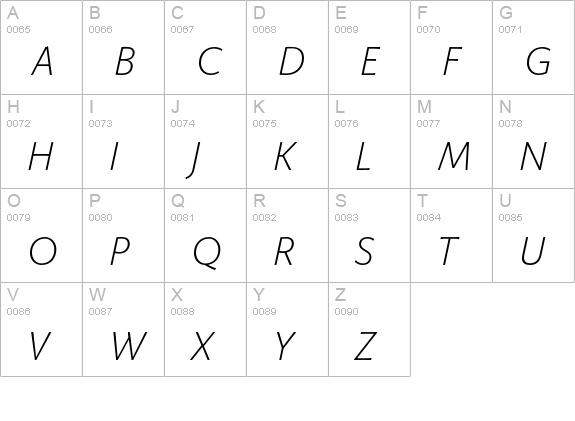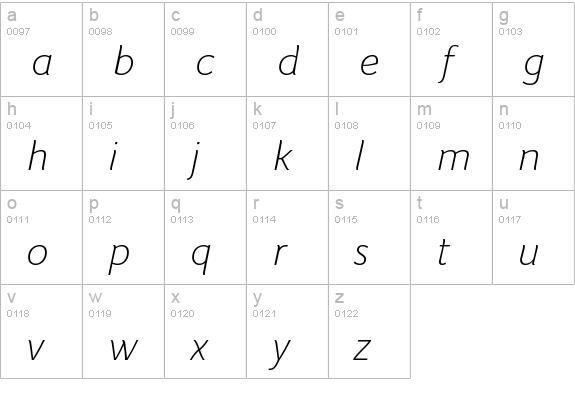
Giacomo LT Light Italic is a refined, elegant, italic variant in the Giacomo typeface family \xE2\x80\x94 well suited to elegant body text, refined sub-headings, and luxury branding.
The Giacomo LT Light Italic font offers a delicate and elegant touch to your design projects. With its slender and sophisticated letterforms, this typeface exudes a sense of grace and modernity. The gentle slant of the italicized characters adds a dynamic flair to any text, making it perfect for titles, headlines, and other display purposes. This font is not only visually appealing but also versatile, as it can seamlessly blend into various design styles, from minimalistic to luxurious. Its light weight conveys a sense of airiness and openness, making it ideal for creating a sense of sophistication and refinement in your designs. Best of all, the Giacomo LT Light Italic font is available for free download at FontsMarket.com. Whether you are a designer looking to add a touch of elegance to your projects or a typographer seeking a versatile typeface, this font is sure to elevate your work with its timeless beauty and modern charm. Download it today and let your creativity shine with this stunning typeface.